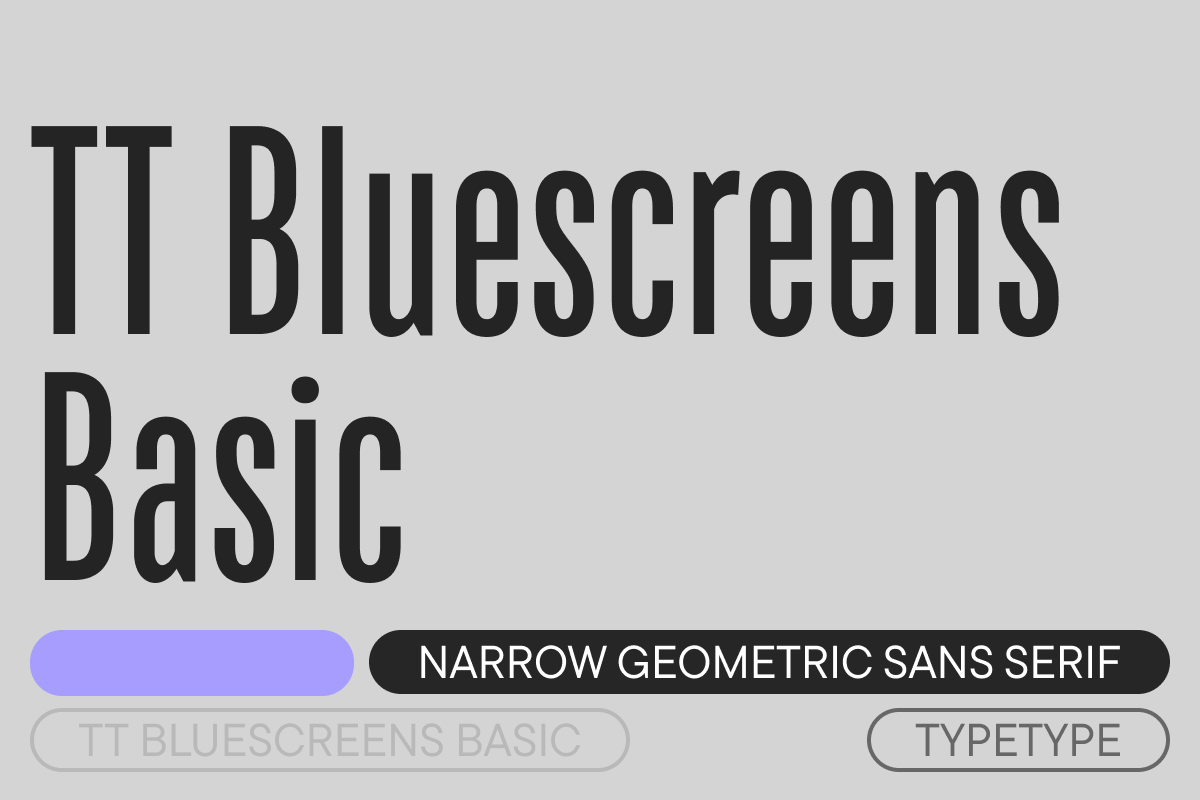
TT Bluescreens Thin Italic
TT Bluescreens is a Neo-Grotesque typeface with narrow proportions and a calm, neutral yet distinctive character. This balance makes it highly versatile. The basic styles have neutral proportions that work well in headlines and remain legible in short text. At medium sizes, the font gains texture and can serve as a visual accent. In large sizes, it appears unusual and expressive while preserving excellent readability, making it suitable for a range of design tasks.